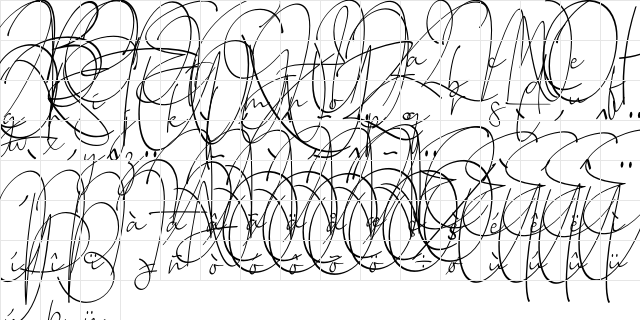
Baltimore Regular Regular
| Designer | Sronstudio |
Design Context for Baltimore Regular Typeface
Baltimore Regular is a composed and adaptable typeface that performs quietly and consistently across a wide range of design contexts.